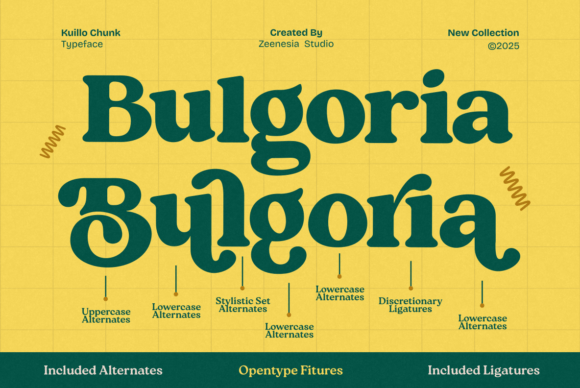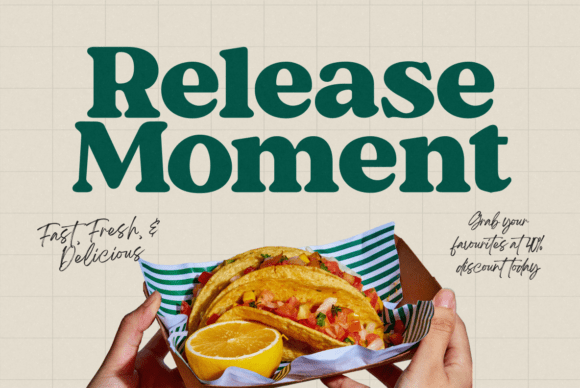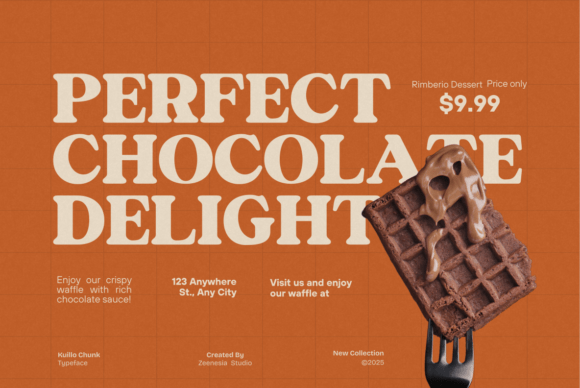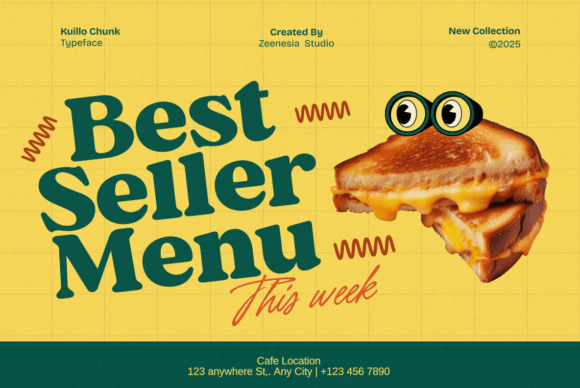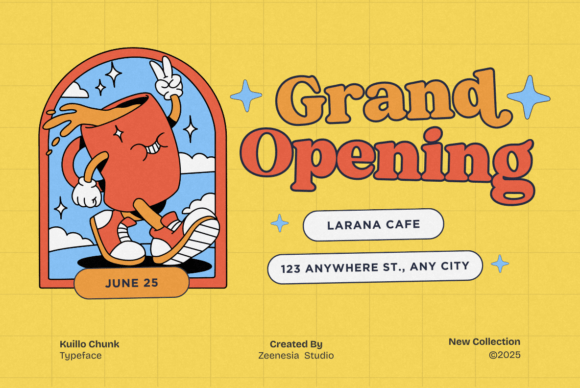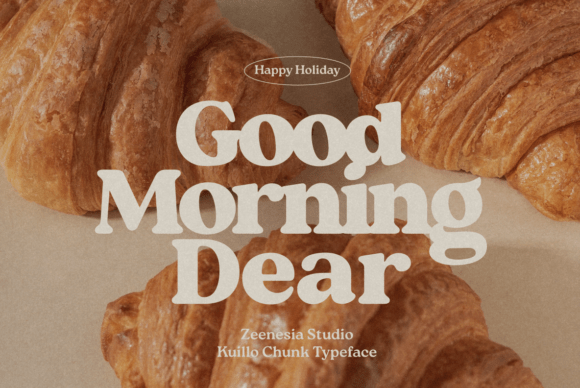
Introduction to Kuillo Chunk Font
The Kuilo Chunk Font is a bold serif typeface with quirky charm and personality.
It blends playful curves with strong structure, making it perfect for branding, product packaging, editorial design, and bold display titles Featuring alternates and ligatures, Kuilo Chunk offers variety and flexibility for creative projects that demand both fun and readability.